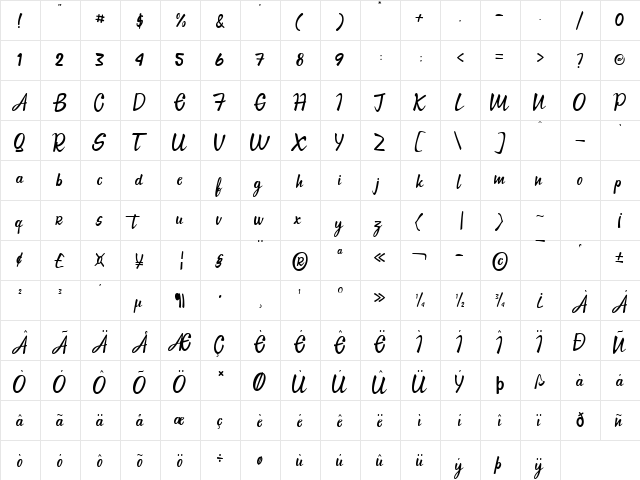
Kasih Putih Regular
| Designer | Doli Anggia Harahap |
Design Context for Kasih Putih Typeface
Kasih Putih is a composed and adaptable typeface that performs quietly and consistently across a wide range of design contexts.